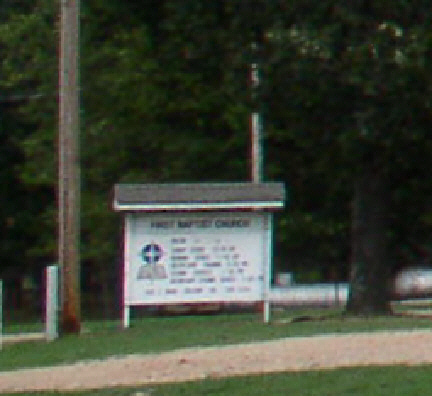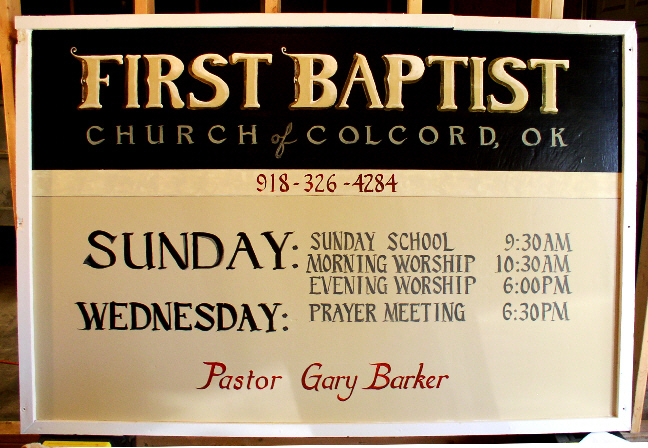
I'm currently doing someone a favor and painting an outdoor sign ---- not my usual surface to paint on, but it's fun. Problem is, I'm sensitive to chemical fumes, really sensitive, and don't use oil paints or anything with that toxic smell.
I picked up some exterior/interior type latex enamel paint and it's fine, smell doesn't bother me, dries really hard. But it takes a lot of coats to cover...
This makes lettering a pain.
Any suggestions? Something that doesn't have a lot of fumes, but thick enough that one stroke is enough (or even two or three would be fine) and that will stand up to weather?
Or should I just letter with my acrylics and then varnish it?
Re: Sign Painting / lettering without fumes?
Hi Cheryl, have you considered Benjamin Moore Aura paints?
Other forum members use the Aura line for their murals. Hopefully they will chime in, along with other favorites.
For my use, I've found BM Aura covers very well. I would never varnish a sign, that will be the first to fail.
Re: Sign Painting / lettering without fumes?
Thanks, Danny --- excellent feedback and just what I need. The recipient of the sign had just told me, this morning, no problem, use what you have (I had mentioned my fine-art acrylics to him) and I'll put a few coats of varnish on it when I pick it up. Nice to know that's not an option - so I'll rethink what I'm lettering with. Would be easier if i'd not had such a short deadline.
Re: Sign Painting / lettering without fumes?
Hi Cheryl, I second what Danny said. I've been using Benjamin Moore for years. I use both Aura and the Collections line. Both work well. You will have some coverage issues with certain colors, such as the Reds and yellows, but it's also a problem with One Shots and other paints. The nice thing with latex is the fact it dries quickly, allowing for quick re-coating. Ronan also puts out a water based product called Aqua Coat for lettering, but I have yet to use it. I wouldn't use artist acrylics as you can get most of the colors with B/M. One thing I've done is to match the colors I use with my artist paint pallet to B/M colors. It's a matter of using the right base, and getting them to leave the white tint out to match colors like Thalo Blue and such, plus it's far cheaper. I also don't put a clear over my work unless its really needed. Most of the house paints available will easily out last One Shot sign paint and such. Just my 2 cents. Good luck on your project.
Re: Sign Painting / lettering without fumes?
Ronans AquaCote is a great product that is more of the one stroke variety.
Re: Sign Painting / lettering without fumes?
excellent advice. I'm so glad I found this forum before progressing too far on the sign. I'll post pictures when I'm done. Definitely plan to do more signs, if anyone asks, because I'm really enjoying working at this size (years back I used to paint miniatures - then my eyesight stopped cooperating) -- and I love lettering...
Re: Sign Painting / lettering without fumes?
here are some pictures, one of their old sign (blurry, sorry) and one of what I'm painting, almost done.
- Here's my work in progress. Almost done. Suggestions for improvement are welcome.
- this was their OLD sign -- peeling white paint, arial style sticky letters from the hardware store...
Re: Sign Painting / lettering without fumes?
Cheryl,
It's always intimidating to take on your first sign but it looks like you've attacked it with gusto.
the line for "Prayer Meeting" looked so much better BEFORE my daughter said "Mom, you forgot to add the Sunday Evening service..."
That was right before she asked me if I knew I had painted the Sunday morning services with the letters PM after their times.
Like I said, or should have said, I don't do rushes very well.
practice...much needed.